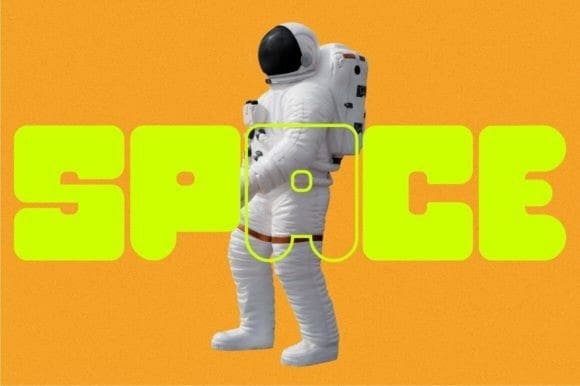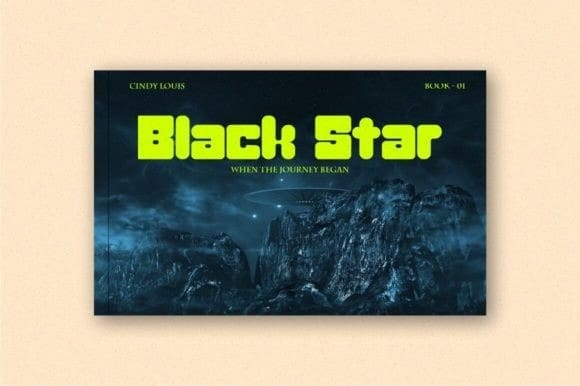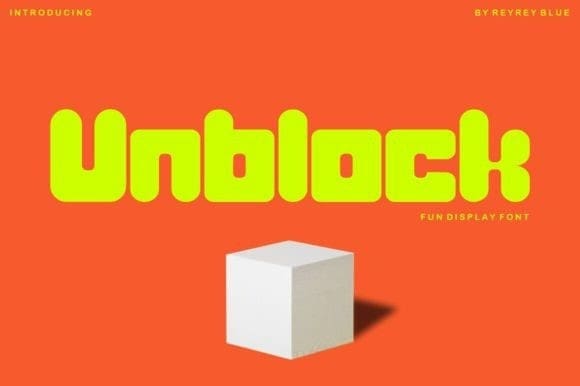
Unblock Display Font
Unblock Display Font. A bold display typeface with strong character and soft features. It’s bold, fun, and playful. It can make your design unique, modern, and stunning.
Unblock is perfectly suited for Comic Posters, Childish headlines, Decorative letters, Notices, Logo Designs, and Big funny Banners. Creative & Decorative Typography Web Design and much more.